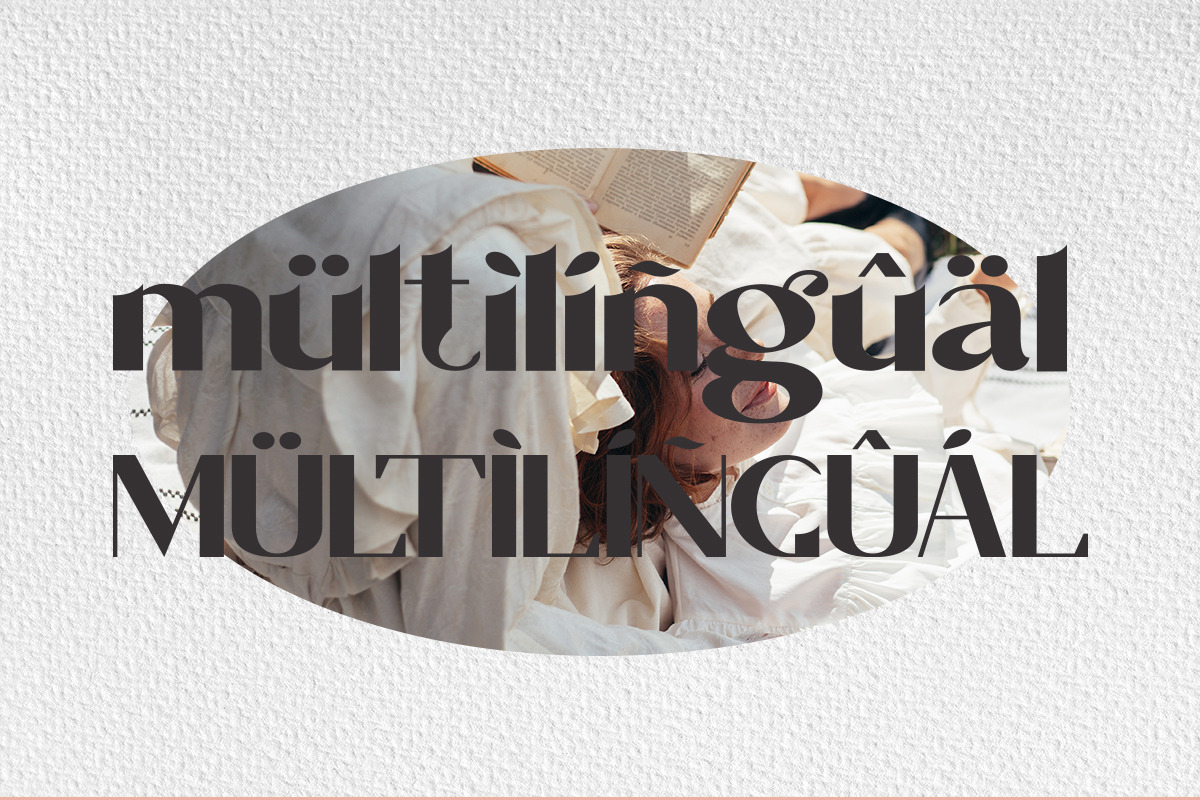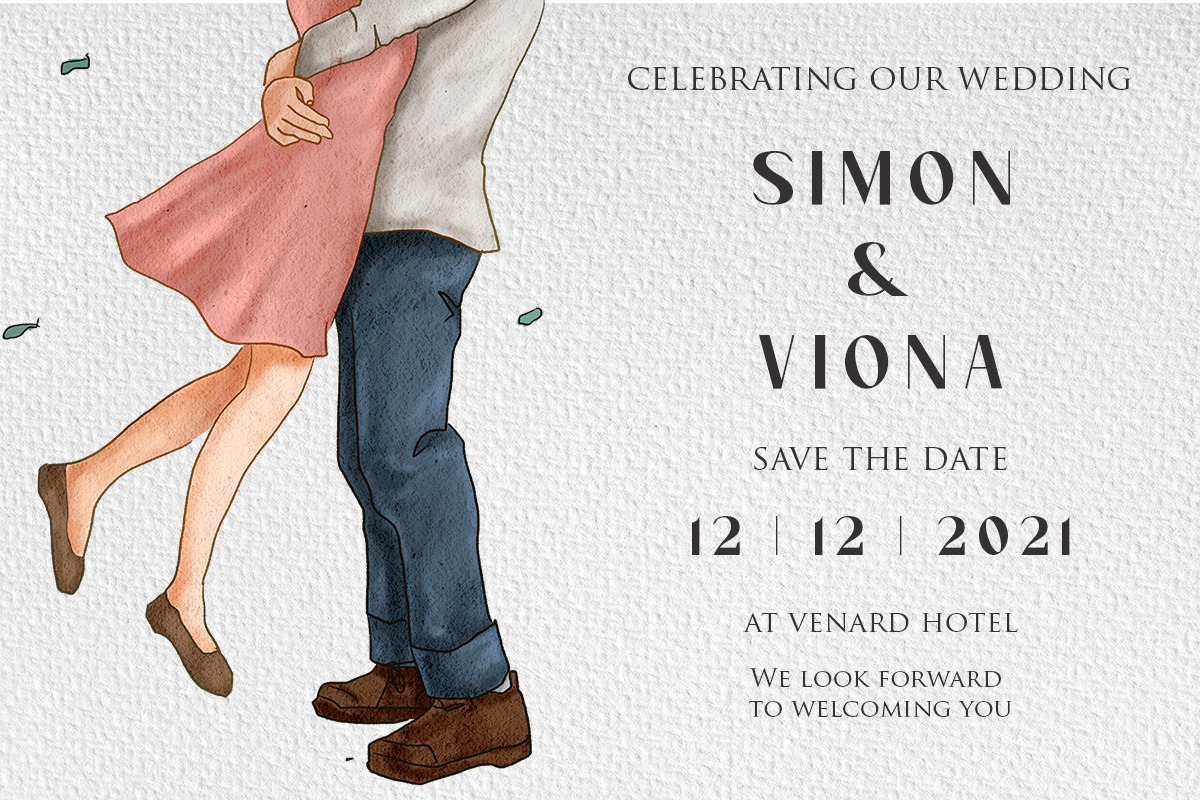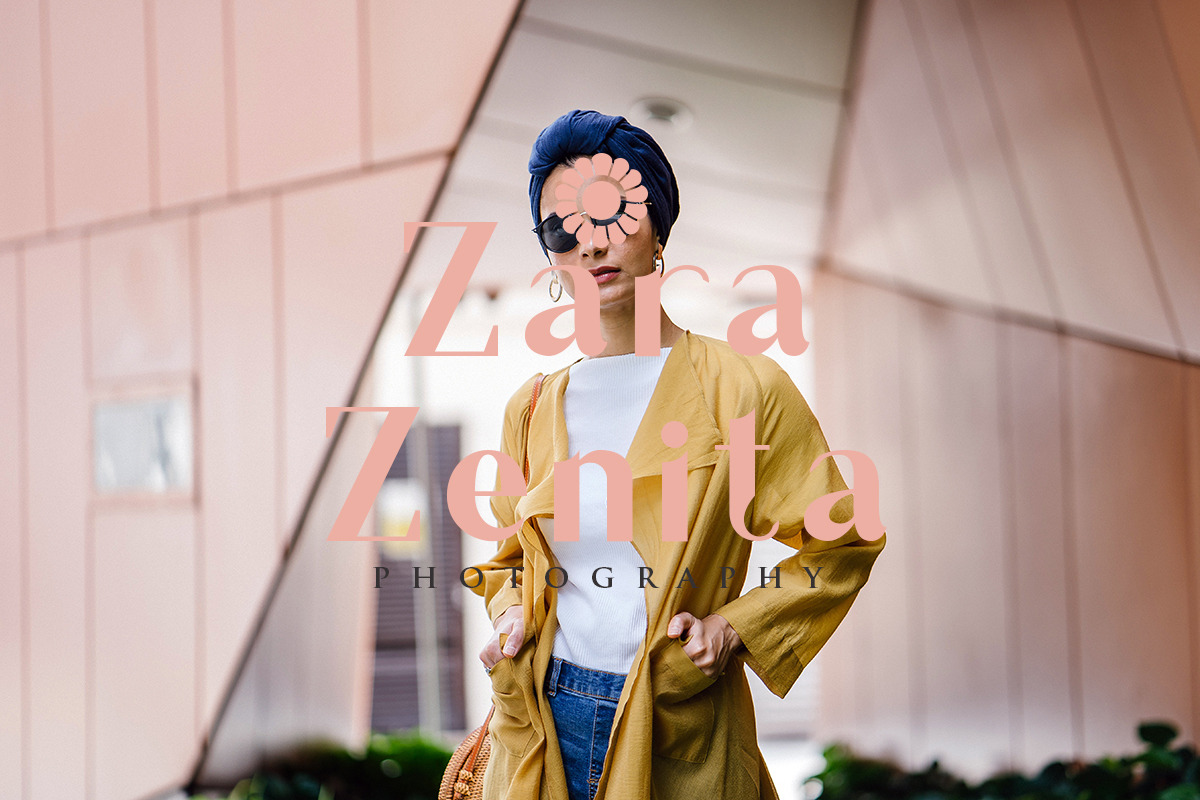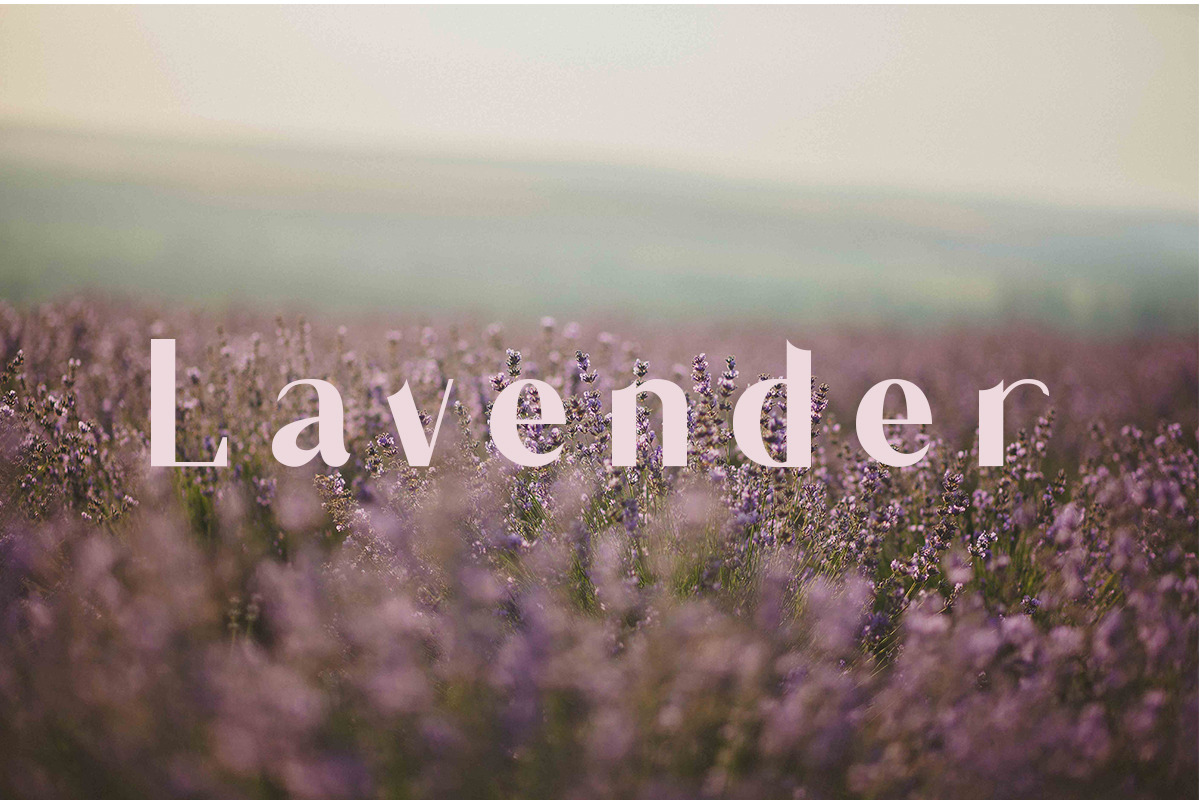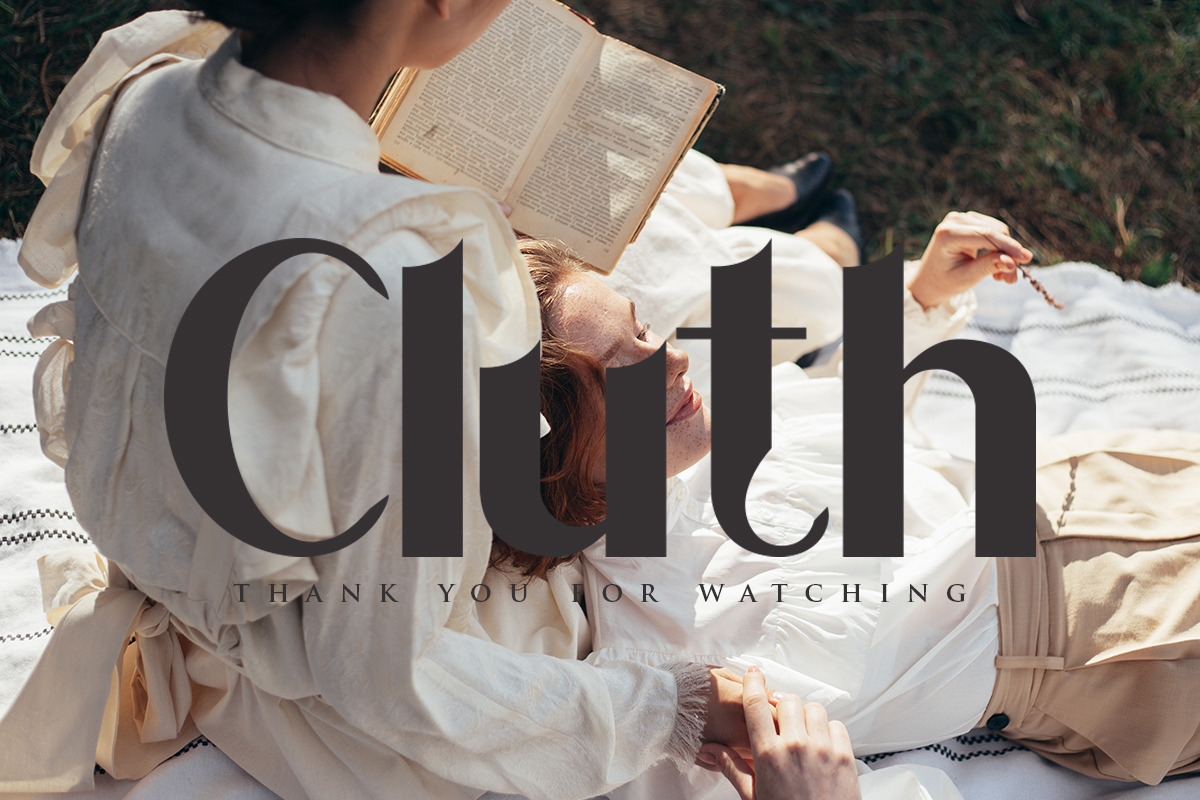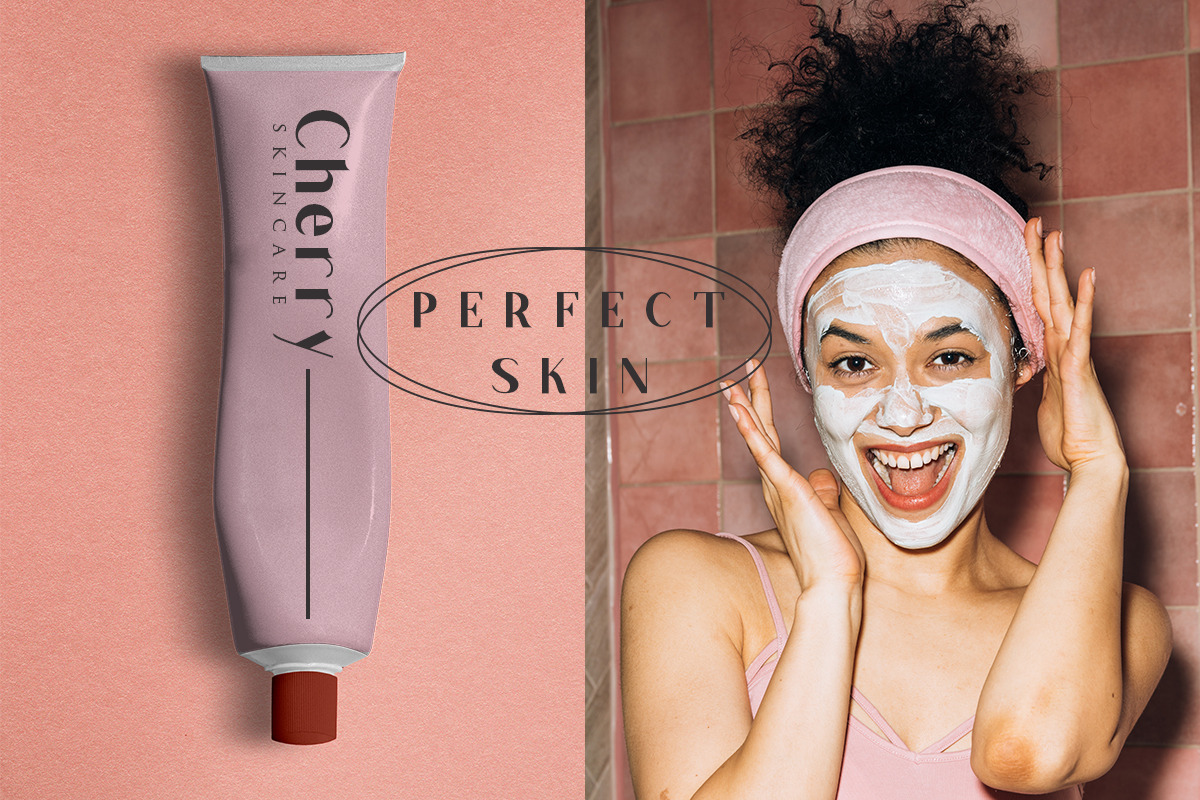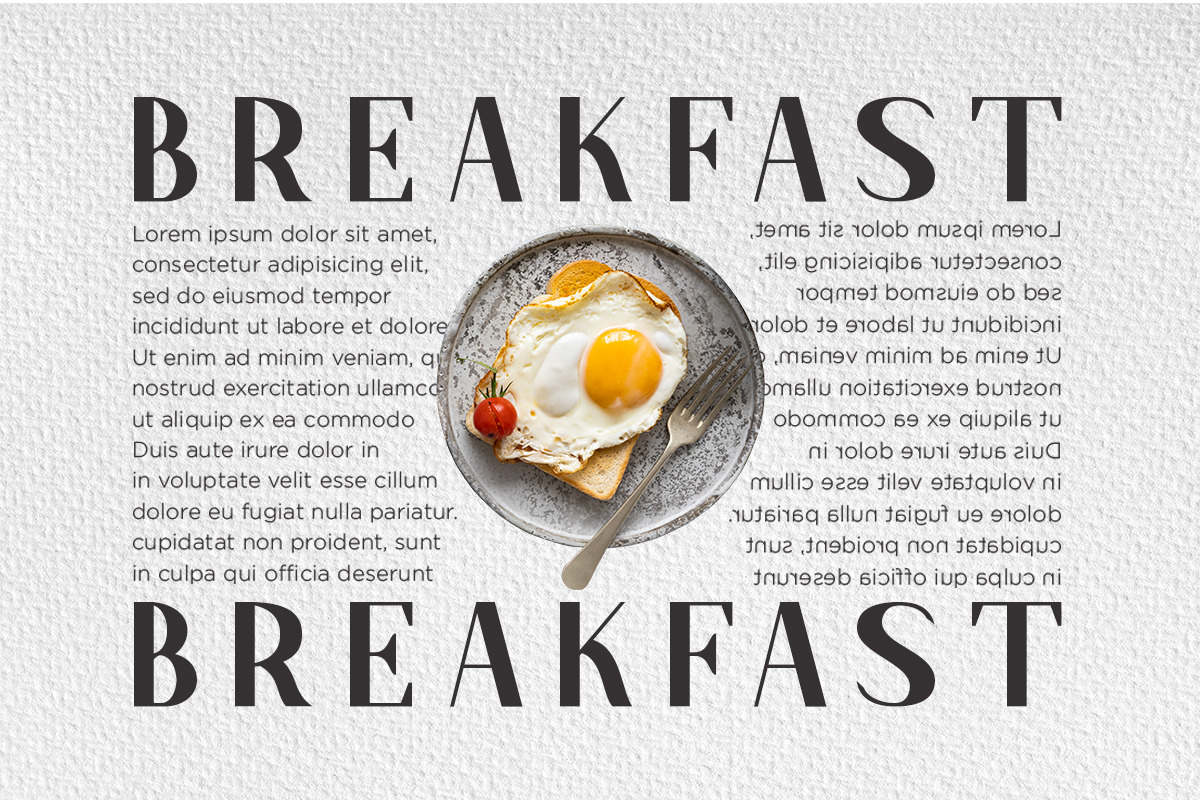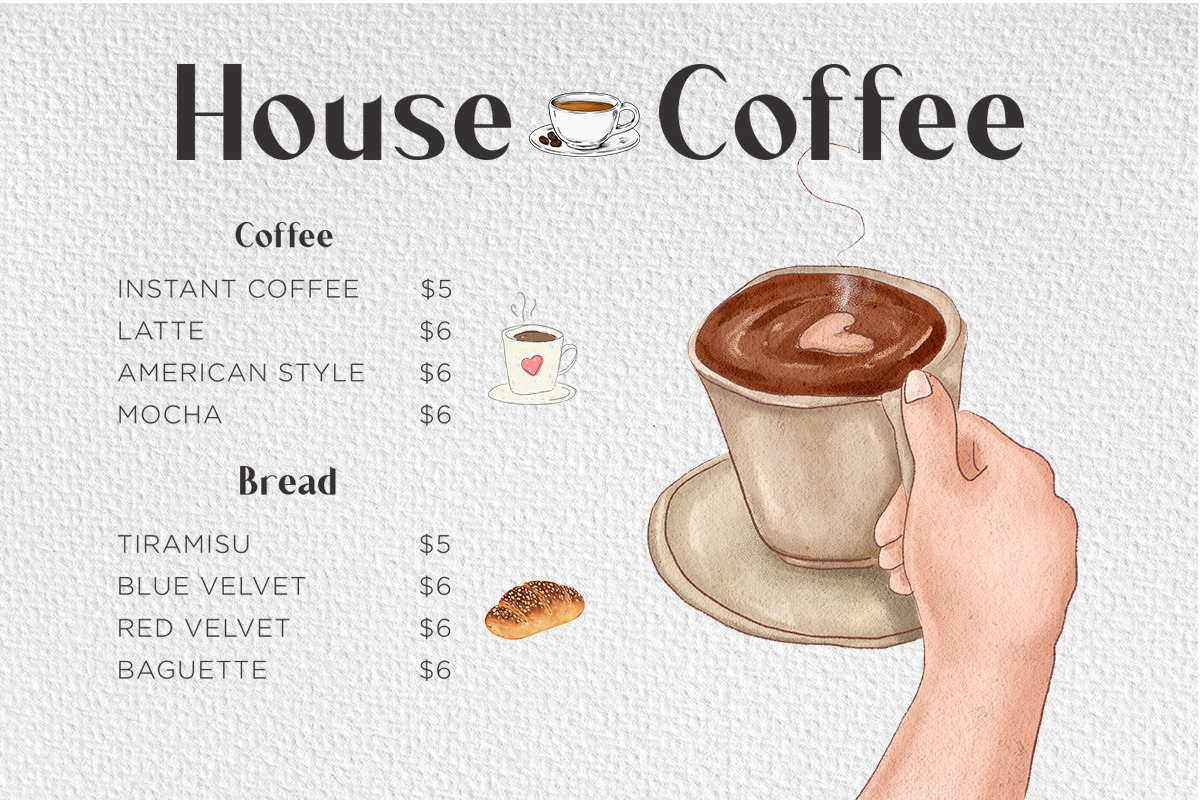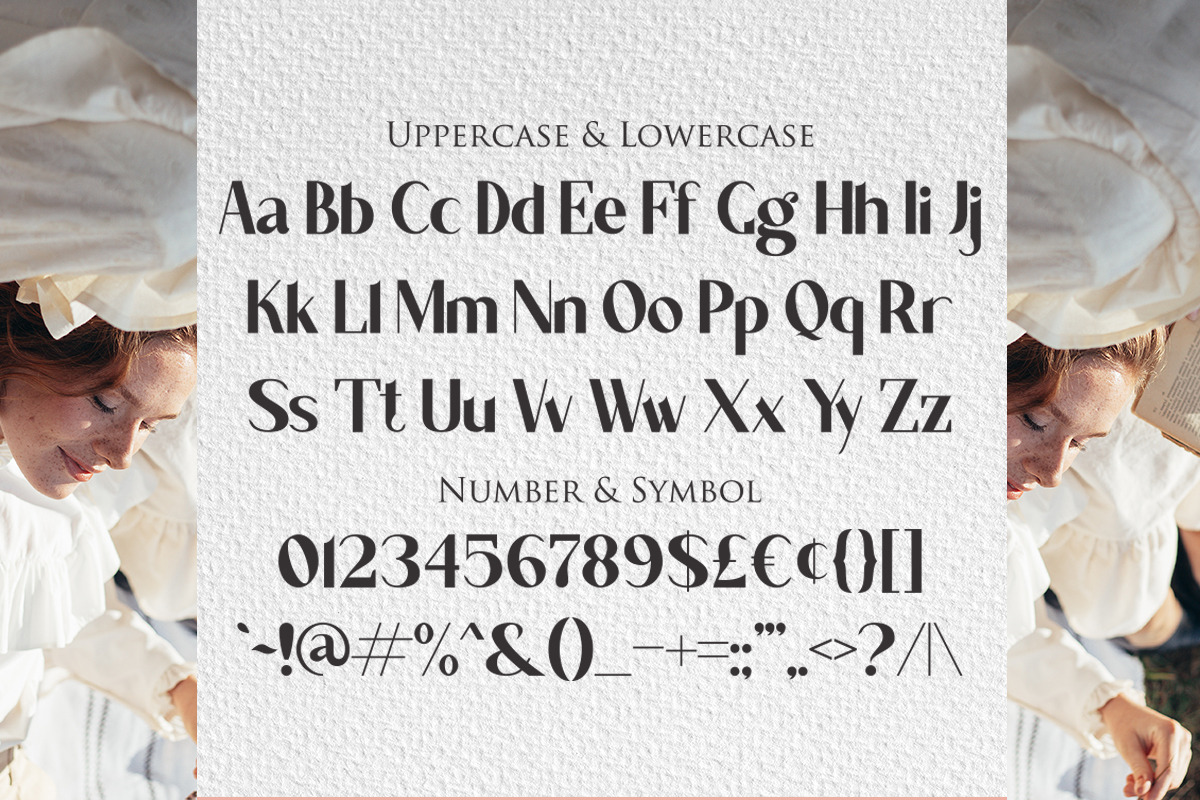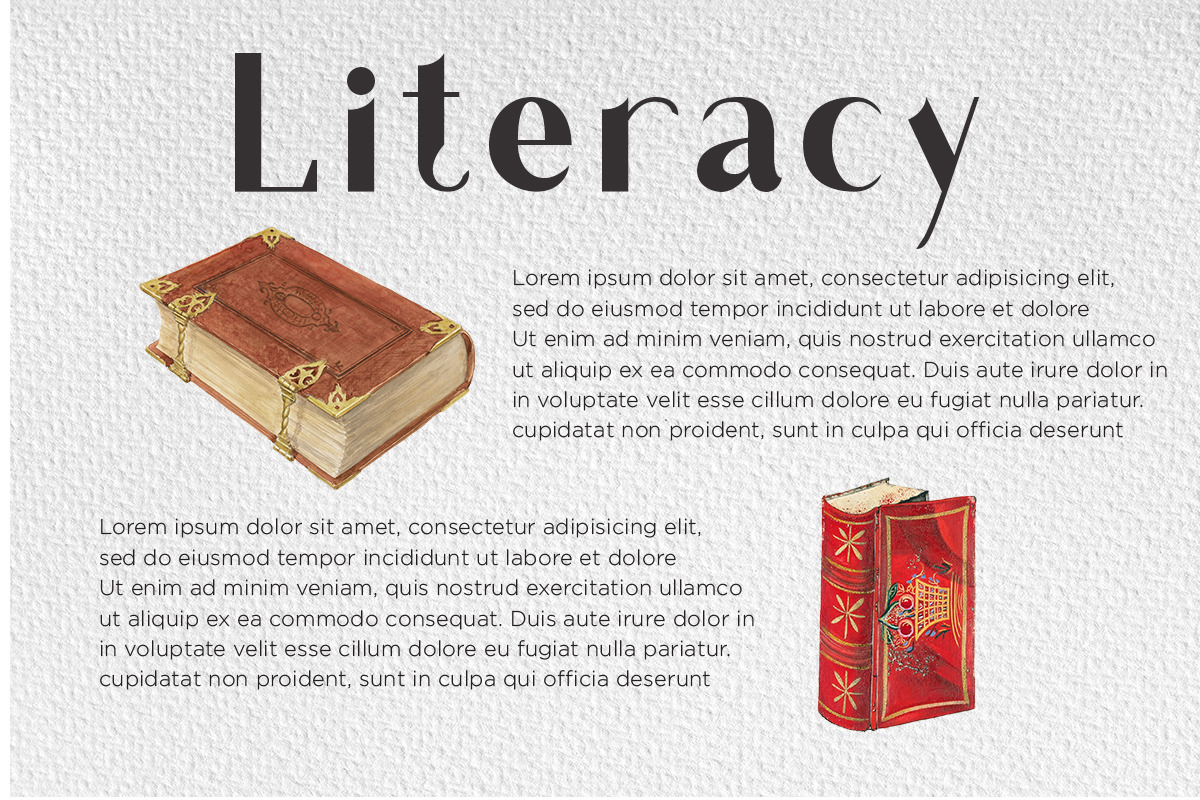
Cluth - Beauty Store Sans
Introducing Cluth
Cluth - a display sans serif with simple, clean, and visual elegance. Specially designed for elegant-themed projects, perfectly suitable for creating simple . It's a very versatile font that works great in large and small sizes. Cluth is perfect for branding projects, Logo design, Clothing Branding, product packaging, magazine headers, or simply as a stylish text overlay to any background image. Cluth is a versatile typeface that's full of character and one you'll come back to time and again. Create something beautiful today with Cluth.
Cluth Features:
- 3 Weights font (Regular,Italic,Bold)
- Lowercase and Uppercase
- Multilinguall Support